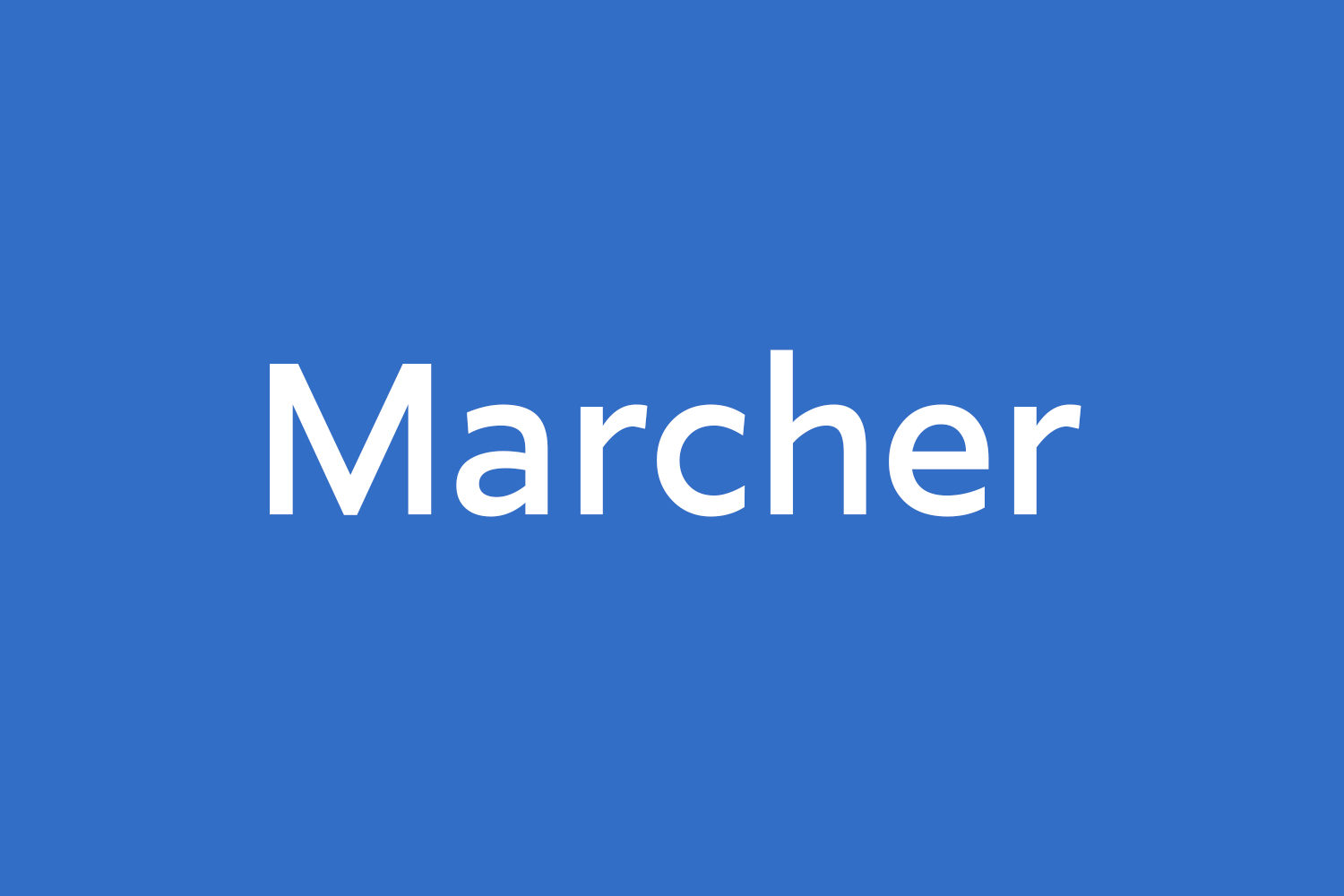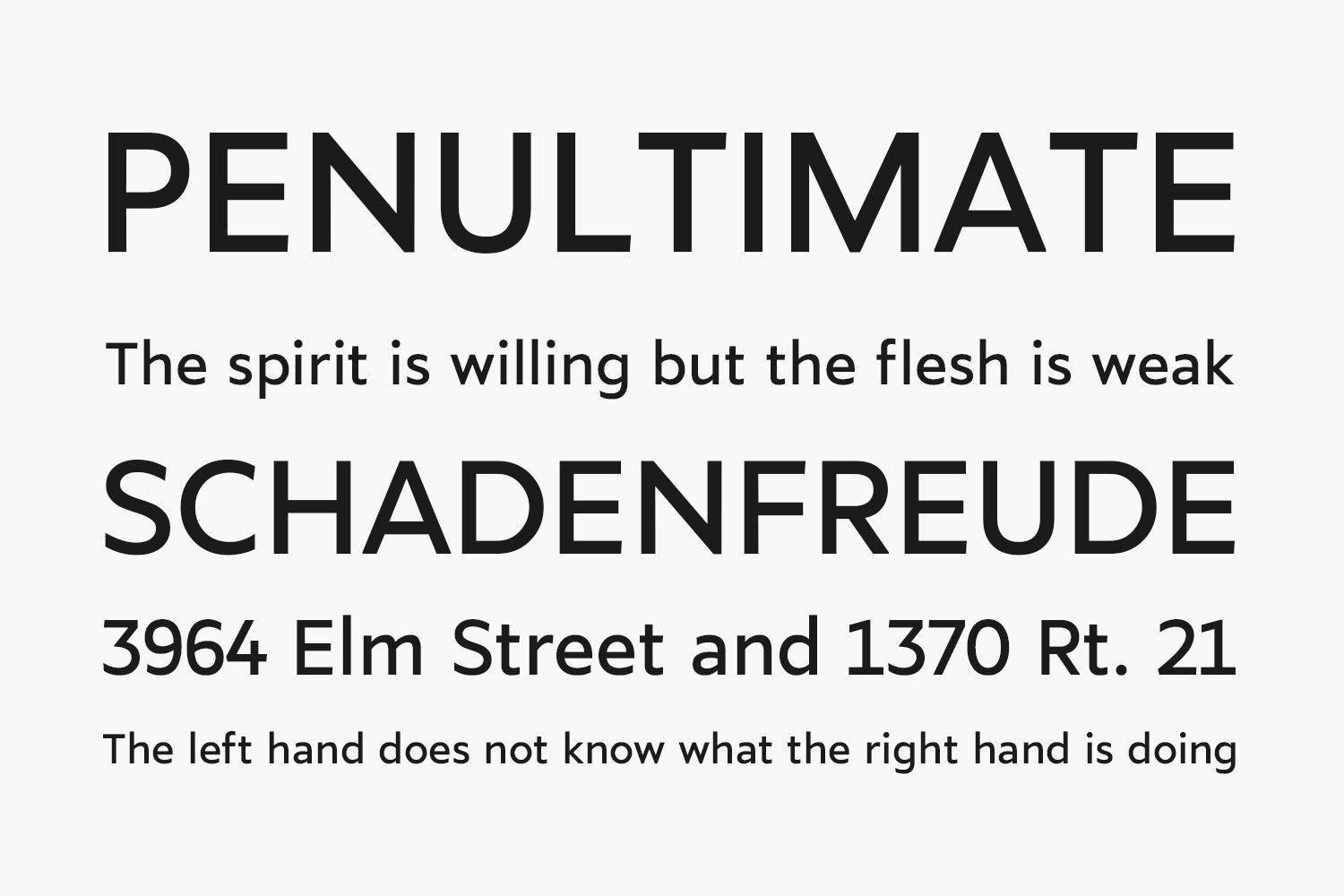
Marcher Free Font Family is a modern display typefamily in 10 weights plus matching true italics. Marcher has semi humanist and semi geometric details. It is coming with alternative character set. Marcher has no opentype features and designed for especially logos and posters.
Designed by Horizon Type